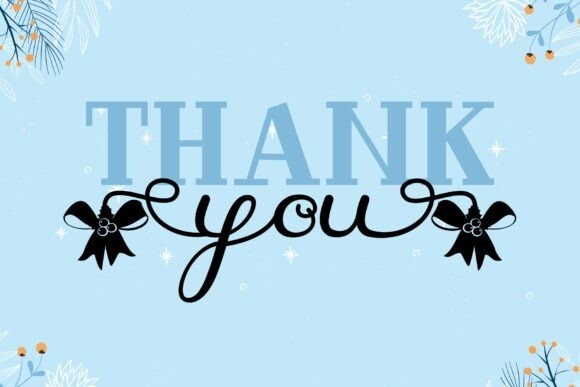
Hello Winter Duo Font
Hello Winter Duo Font is a fun and playful font duo (script and retro look). This font is inspired by the beauty of ribbons so it’s perfect for adorable and kid-related products. This font is PUA encoded which means you can access all the glyphs and swashes easily!